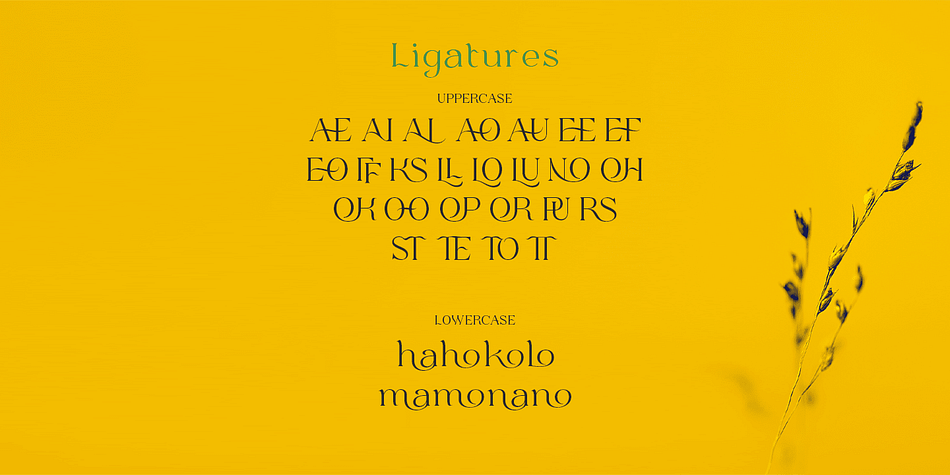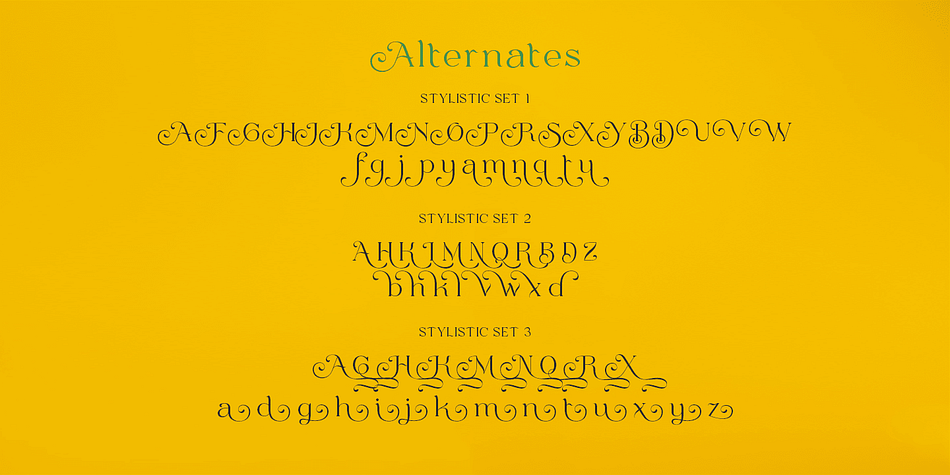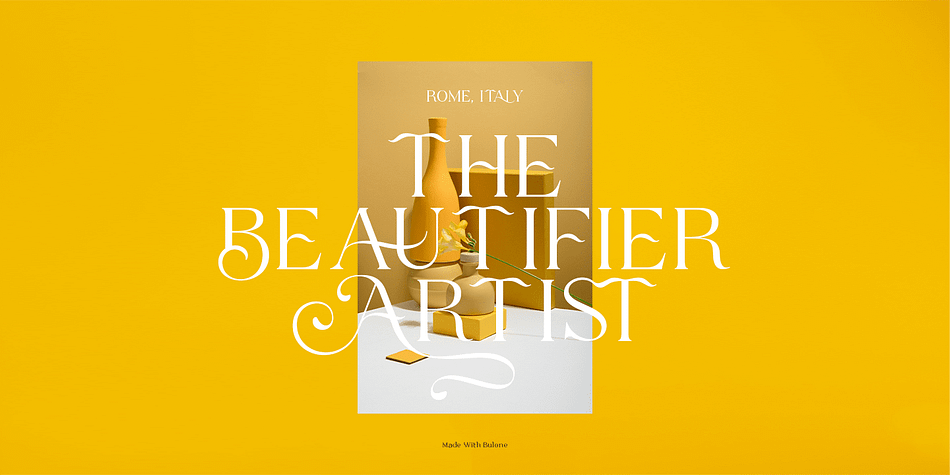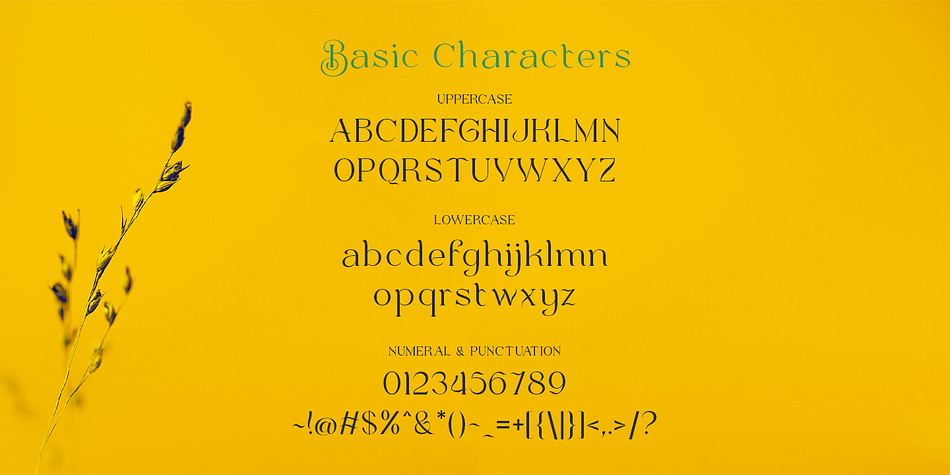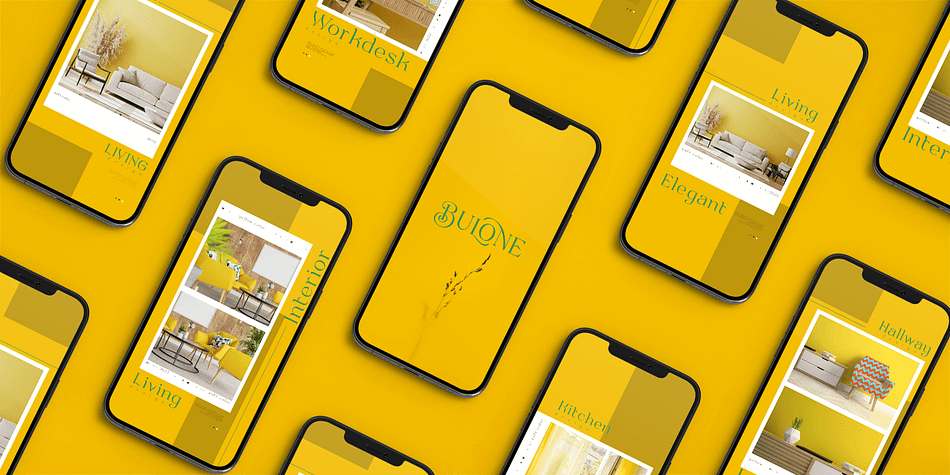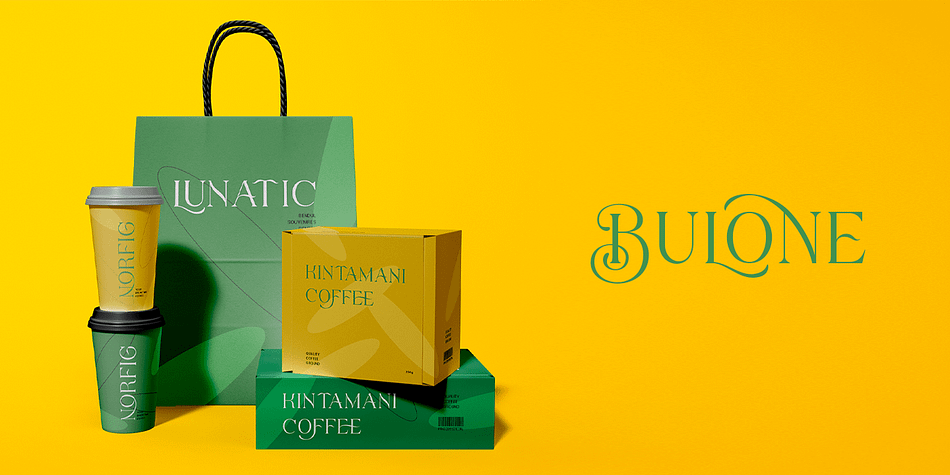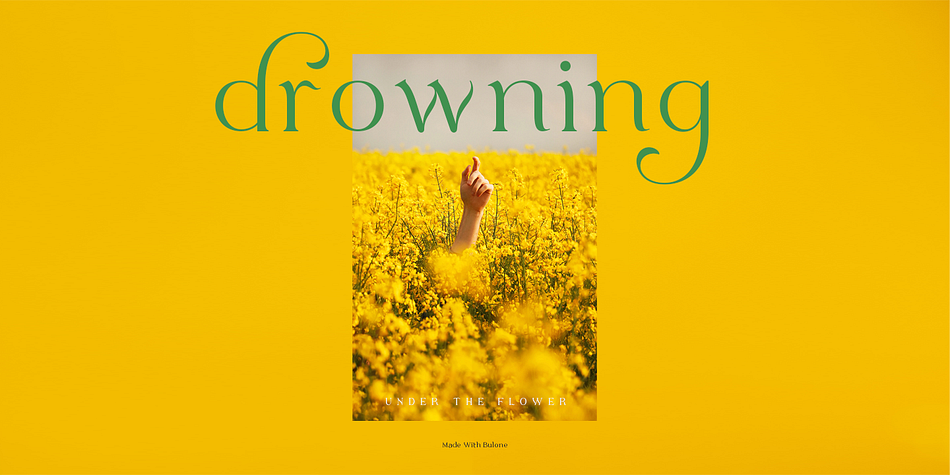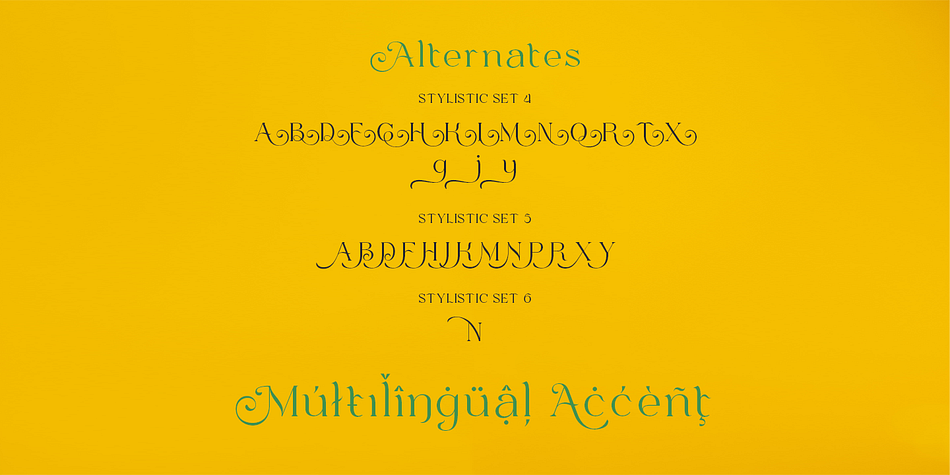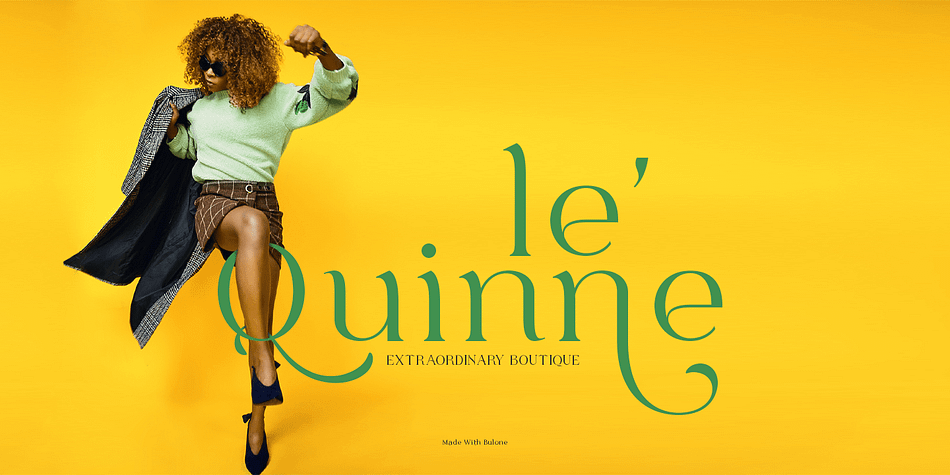
Designed by Alit Suarnegara, Bulone is a display serif font family published by Alit Design.
????Introducing Bulone Serif Elegant typeface????
The Bulone Serif typeface is an elegantly themed font that has a dynamic serif style. The details of the shape of the “Bulone Serif Elegant typeface” are very smooth and flow to create unique and beautiful curves. Elegant Serif typefaces such as “Bulone Serif Elegant typeface” are very easy to apply to any design, especially those with an elegant and smooth concept, besides that this font is very easy to use both in design and non-design programs because everything changes and glyphs are supported by Unicode (PUA).
The Bulone Serif Elegant typeface contains 613 glyphs with many unique and interesting alternative options.